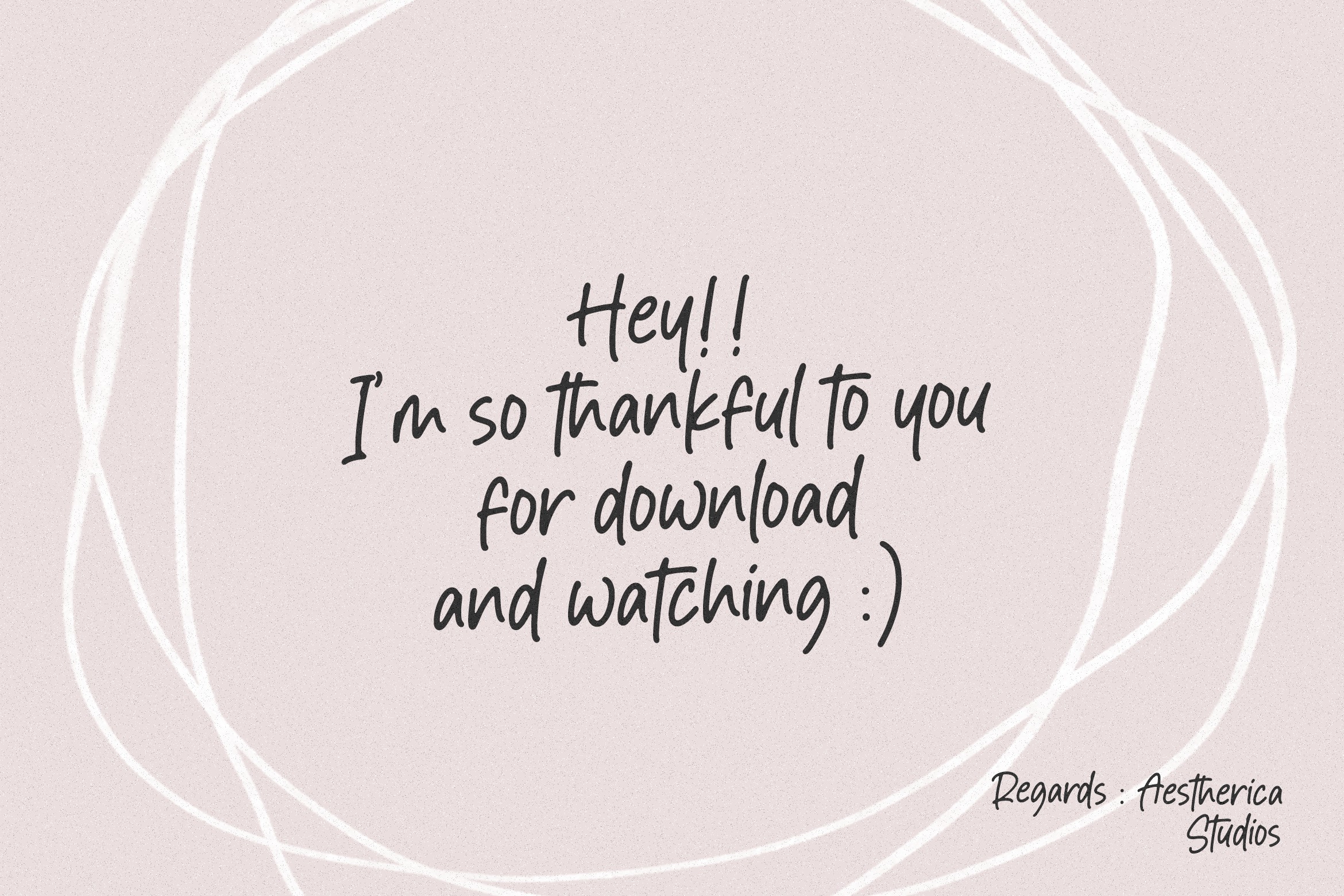
Fabulous Display Font
Fabulous Display Font is a Charming Quotable font with a Brush style and extended kerning, special for your quotes. It puts a bold accent to your projects and it will inspire you to create something playful and unique.
Fabulous Display Font will help you create special and touching typographical designs for your display quote projects. It is perfect for headings, flyers, greeting cards, product packaging, book cover, printed quotes, logotype, apparel design, and album covers.